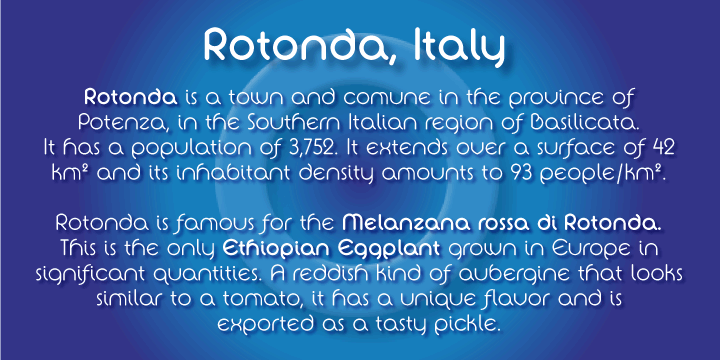
A single weight rounded font, similar to the popular Futura font with several new twists.
Usage recommendations include captions, packaging, invitations, cards, posters, ads, book jackets, and manuals.